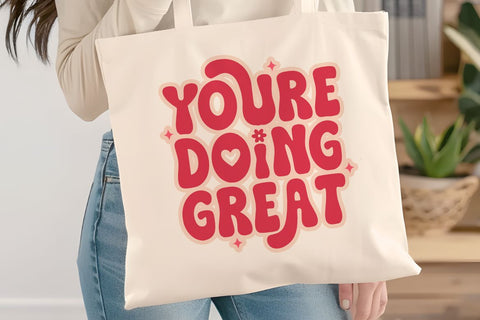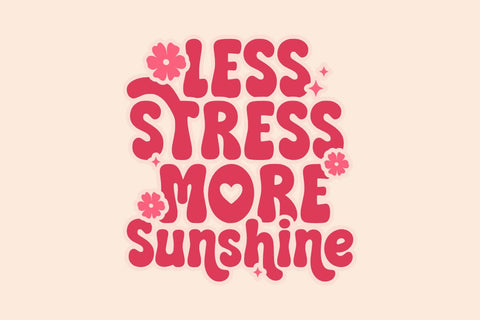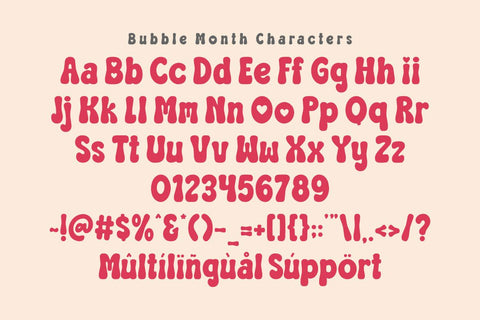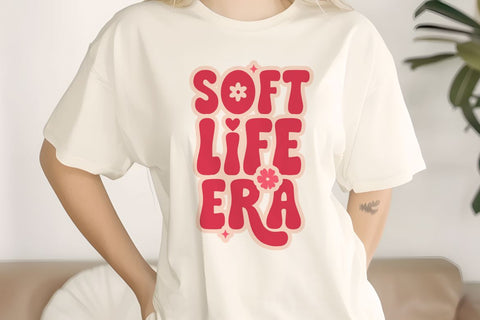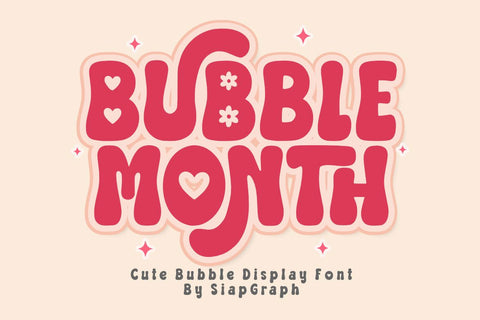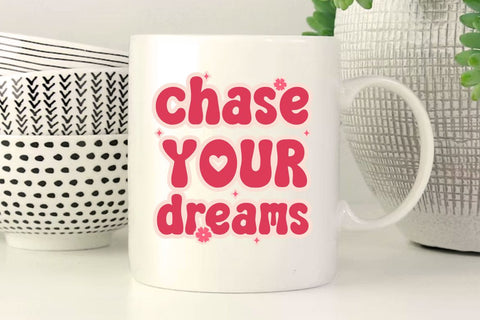
Bubble Month - Cute Bubble Display Font
Bubble Month is a cute bubble display font that radiates playful energy, optimism, and joy. Featuring chunky, rounded letterforms accented with charming heart and flower details, this typeface is specifically crafted to add a whimsical and affectionate touch to your creative projects. Its clean and solid construction is optimized for the crafting community, ensuring a seamless and frustration-free experience for vinyl cutting, sublimation, and high-quality digital printing.
Perfect for: creating high-impact SVG cut files, personalized stickers, kids' party decorations, adorable nursery wall art, custom t-shirt designs, festive greeting cards, and vibrant social media graphics. Whether you are a professional Print on Demand (POD) seller or a dedicated DIY enthusiast, this font offers the perfect balance of readability and sweet charm for any project.
Great for holiday themes such as Birthdays, Valentine's Day, Spring celebrations, and Children's Day, adding a bouncy, cheerful, and super cute personality to all your seasonal design collections!